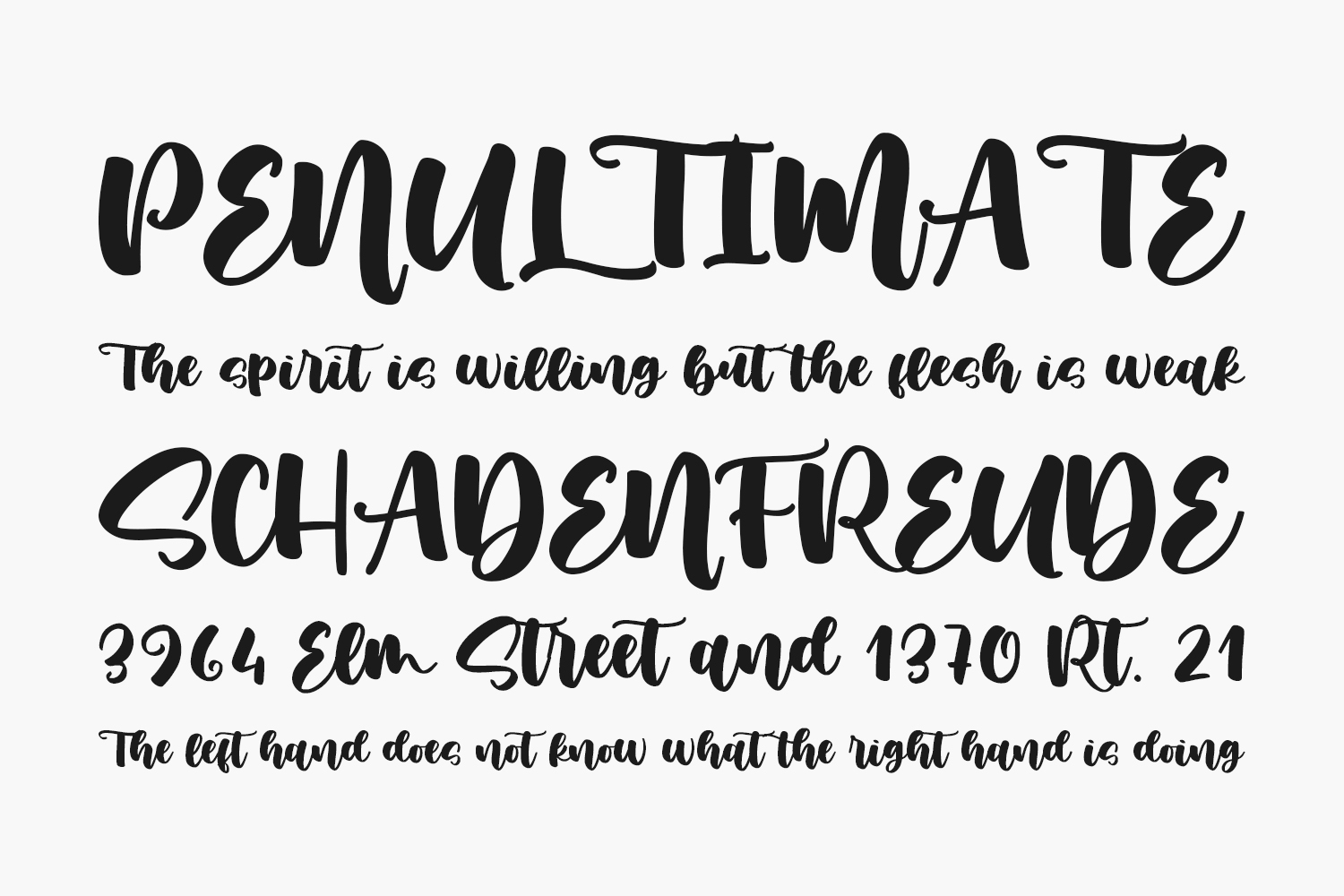
Muthiara Free Font is a modern calligraphy font. This fonts license is free for personal use only with limited features. If you want to use it for a commercial project, please purchase it here.
Designed by Abo Daniel